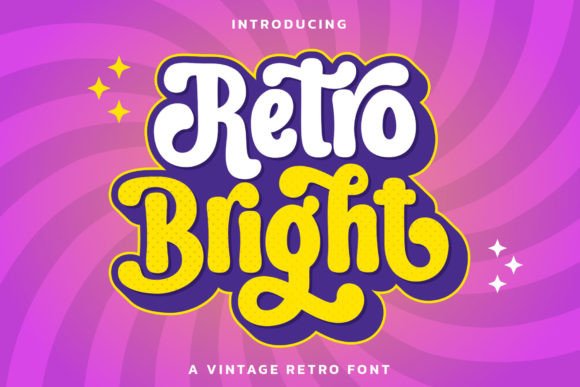
Are you looking for a font that captures the essence of retro design? Look no further than Retro Bright Font! Created by Hoperative Design, this cool and fun display font is perfect for adding a special touch to any design idea.
With its playful script style, Retro Bright Font is versatile and can be used for a variety of purposes, including logos, branding, invitations, stationery, wedding designs, social media posts, and more. But what really sets Retro Bright Font apart is its ability to transport you back to the 80s and 90s, making it the perfect choice for any retro-themed project.
Not only is Retro Bright Font visually stunning, it's also incredibly user-friendly. The font is PUA encoded, which means you can easily access all of the glyphs and alternates. This makes it simple to create a unique and customized look for your designs.
So why settle for a boring font when you can elevate your design with Retro Bright Font? Whether you're looking to create a throwback logo or a vintage-inspired invitation, this font is the perfect choice. Add a touch of nostalgia to your design with Retro Bright Font today!